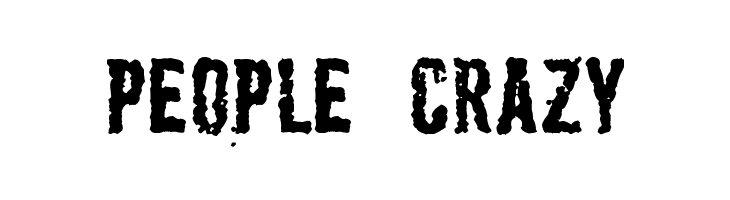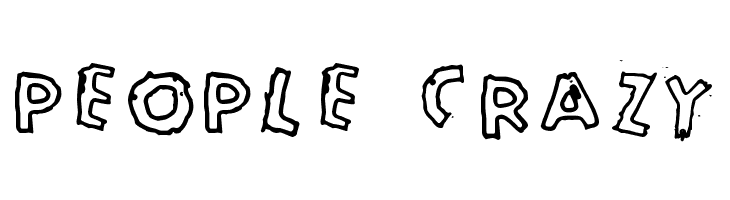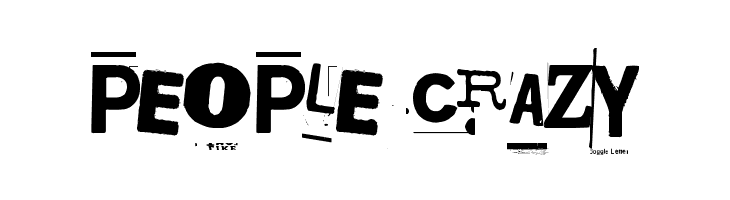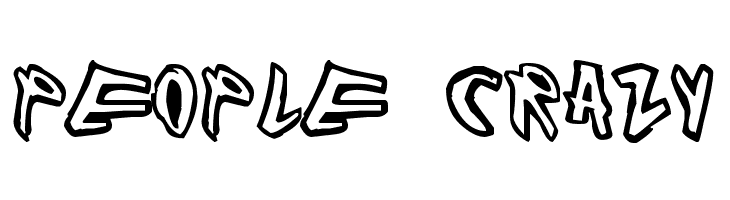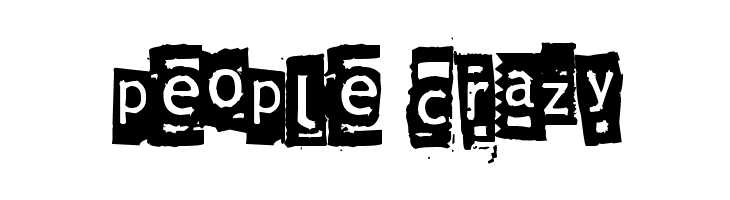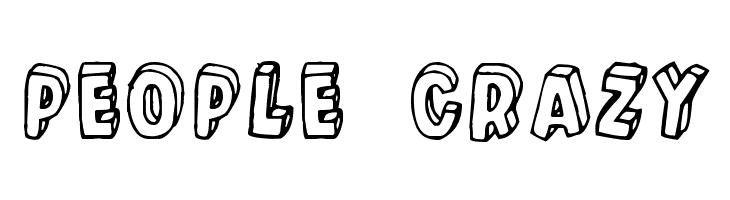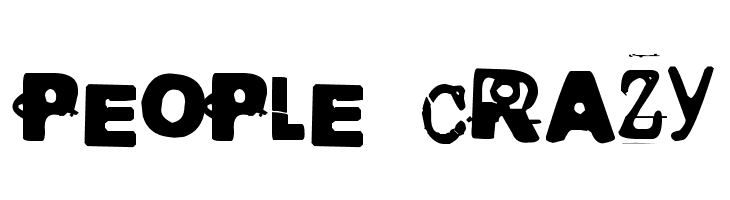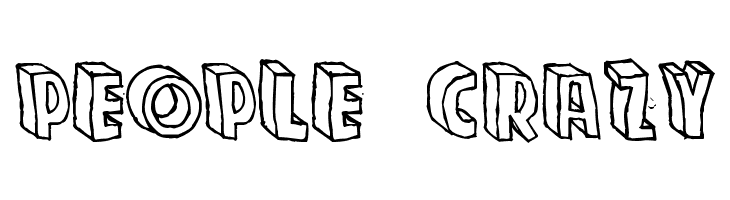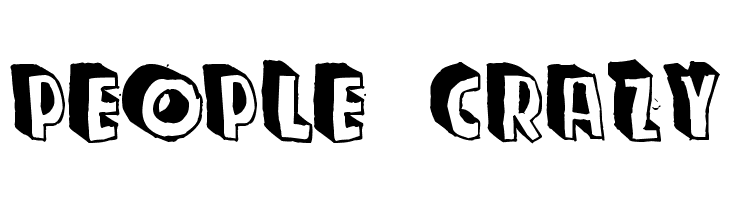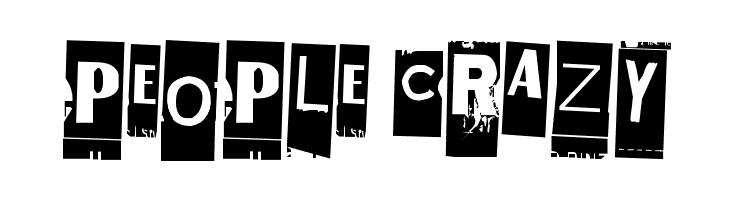
A bold, hand-drawn font with irregular strokes and an artistic, expressive style.
A distressed, grunge-style font with a chaotic, cut-out letter appearance.
A decorative font with characters designed to look like bones, perfect for spooky themes.
A bold, distressed font with a rugged, eroded appearance.
A whimsical, hand-drawn font with irregular strokes and a playful aesthetic.
A playful, hand-drawn font with wavy, irregular outlines.
A chaotic, ransom note-style font with mismatched, distressed characters.
A bold, graffiti-inspired font with a playful and edgy style.
A distressed, grungy font with a cut-out newspaper style.
A bold, playful, and three-dimensional hand-drawn font with a cartoonish style.
A bold, 3D hand-drawn font with a playful, cartoonish style.
A bold, playful font with a three-dimensional shadow effect.
A bold, distressed font with a vintage, cut-out style.
A bold, distressed font with a cut-out, ransom note style.
A bold, distressed font with a grunge aesthetic and dynamic character shapes.
A bold, cut-out style display font with high contrast and unique character designs.
A playful, hand-drawn font with rounded, irregular shapes.
A bold, distressed font with a rugged, hand-drawn appearance.
A bold, distressed font with a rugged, graffiti-like style.
A bold, distressed font with a hand-drawn, grungy style.
A bold, distressed font with a rugged, stamp-like appearance.
A bold, playful font with a hand-drawn, graffiti-like style.
A distressed, grungy font with bold, irregular strokes and a hand-drawn feel.
A bold, distressed font with a grunge aesthetic and textured appearance.
Minimalist, box-outline geometric font with extreme abstraction.
A bold, distressed font with a vintage, grunge aesthetic.
Decorative font with cow illustrations.
A bold, distressed font with a rugged, industrial style.
A bold, distressed font with a vintage, grunge aesthetic.
A bold, distressed font with a grunge aesthetic and ink imperfections.
A bold, distressed font with a vintage, industrial feel.
A bold, hand-drawn font with an organic, rugged appearance.
A bold, grunge-style font with a cut-out, distressed appearance.
A bold, grunge-style font with splattered, irregular edges.